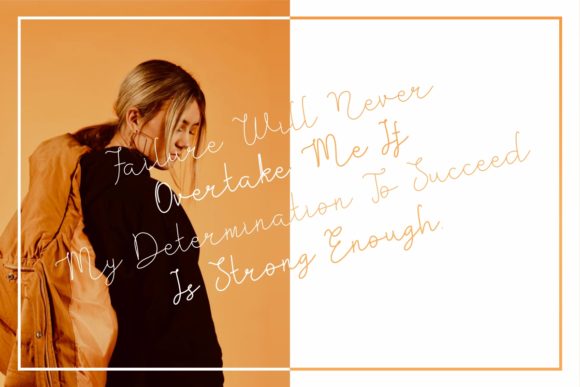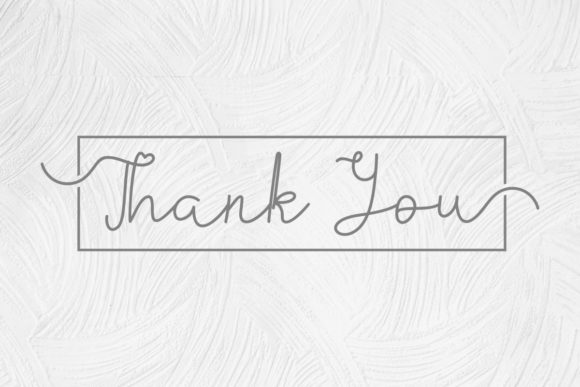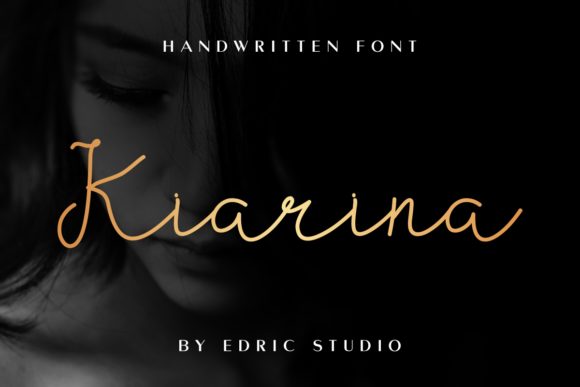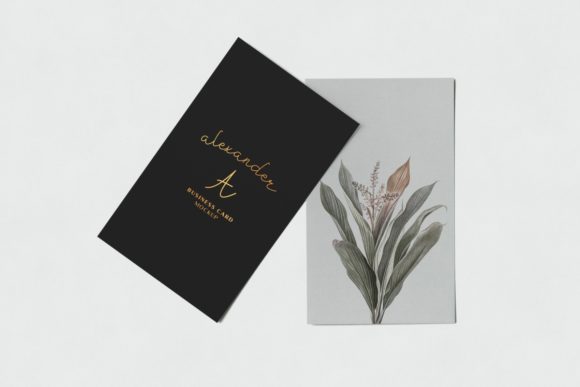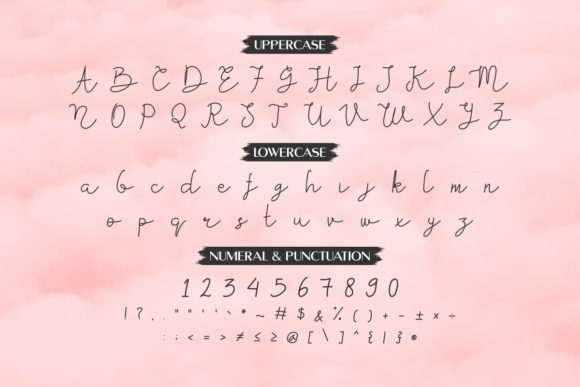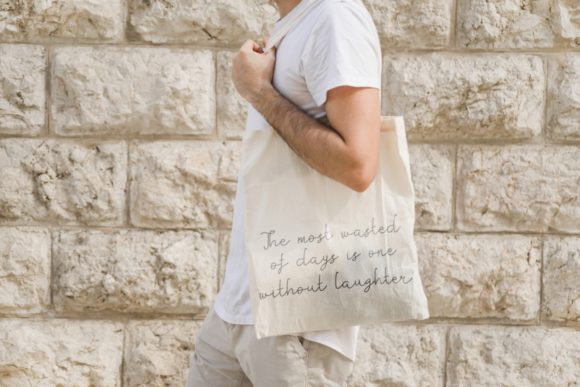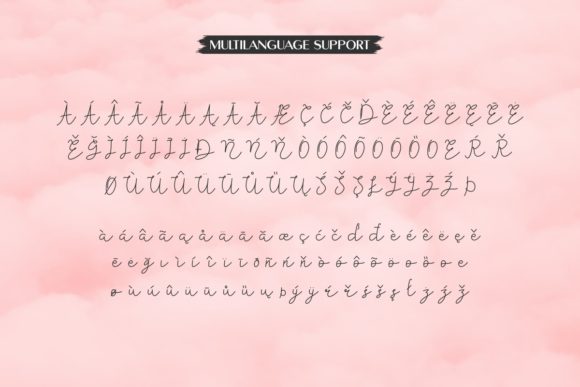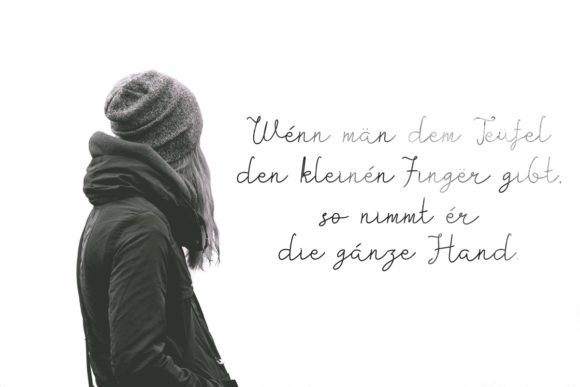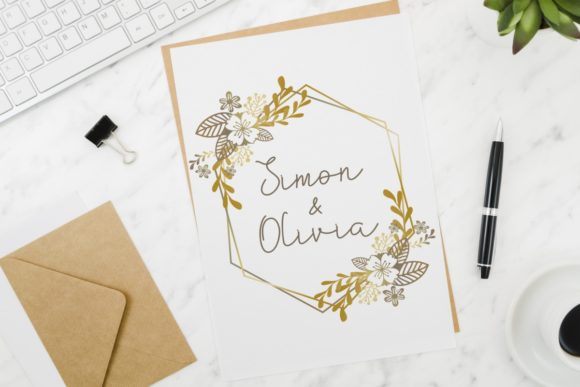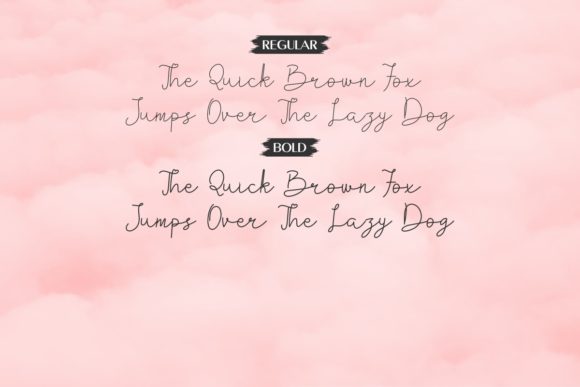
HomeScript FontsKiarina Font Script Fonts Kiarina Font FacebookXPinterestWhatsApp Kiarina Font Poster 2 Kiarina Font Poster 3 Kiarina Font Poster 4 Kiarina Font Poster 5 Kiarina Font Poster 6 Kiarina Font Poster 7 Kiarina Font Poster 8 Kiarina Font Poster 9 Kiarina Font Poster 10 Kiarina Font Poster 11 About Kiarina Font Kiarina is an elegant & delicate script font. Fall in love with its flowing curves! DOWNLOAD ON CREATIVE FABRICAThis font is sold and delivered by Creative Fabrica. Font Canyon may earn a commission if you buy through this link. People also explored Boo Words Font Jayanti Font Welldone Font Montez Bubble Summer Font Sintia Sattia Font Vintage Reclame Font Berlishanty Calligraphy Font Madison Font 314 0 TagsKiarina Font Previous articleMazie FontNext articleRizkia Aisha Font LEAVE A REPLY Cancel reply Comment: Please enter your comment! Name:* Please enter your name here Email:* You have entered an incorrect email address! Please enter your email address here Website: Save my name, email, and website in this browser for the next time I comment. Personal Use Free Black Friday Personal Use Free Read more about this font The Pottery Personal Use Free Read more about this font Juliagar Personal Use Free Read more about this font Septhine Personal Use Free Read more about this font BLOG To increase your work productivity, choose the most readable fonts. In today's fast-paced work environment, where digital communication and information consumption are integral to our daily routines, the choice of fonts can significantly impact... The 10 Best Handwriting Fonts to Add Personality to Your Designs Best Fonts for T-Shirt Design – Top 2025 Picks Transform Your Website: Elevate Your Typography with 7 Best Web Font Generators